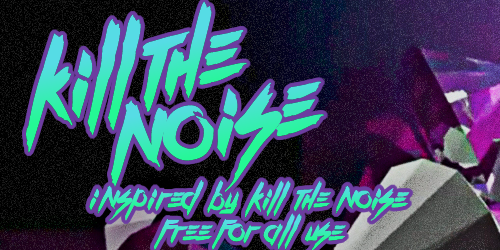
Font name: | Kill The Noise |
Inspired by musician "Kill the Noise". Free for all use! *UPDATE 2014/06/06: This font now contains cloned lowercase, and additional numbers and punctuation for extra usability! |